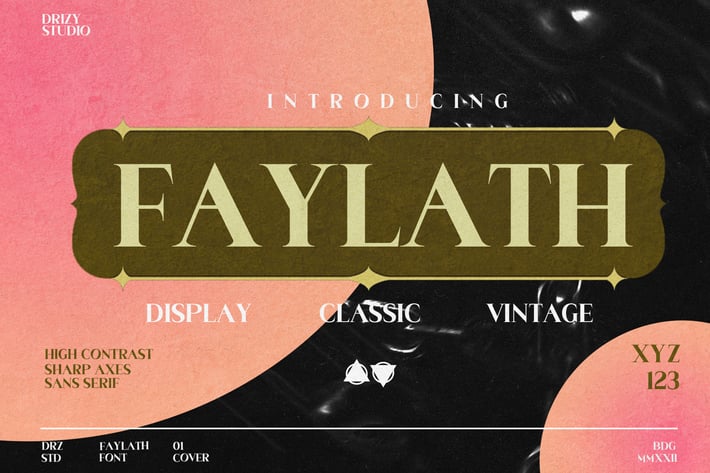
Faylath - Classic Sharp Font
Faylath is a Classic Sharp Font from Drizy studio. Offering all the basic styles you will need especially for classic theme project.
Faylath Features:
All Caps
Multilinguals
Alternates
Ligatures